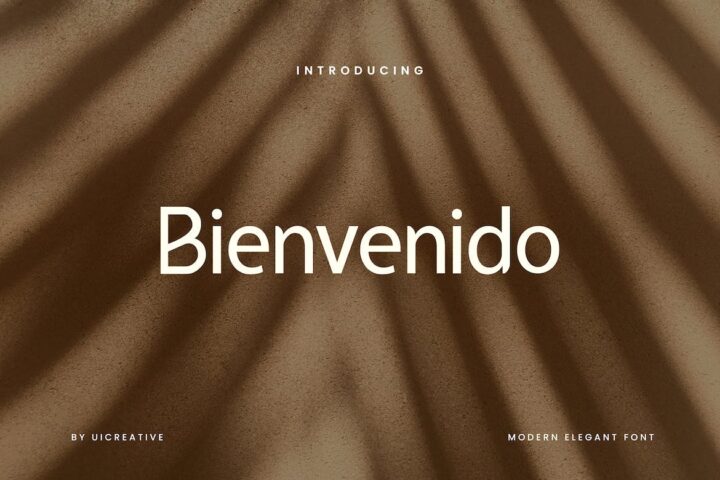
Bienvenido Sans Serif Font
Bienvenido Sans Serif Font is new sans serif. The typefaces designed based on traditional geometric construction that have been built with letter size wider, the x-heights taller and short descender that almost proportioned with the basic letter shape. With little details added like clean vertical cuts on the terminals and optimized sharp corners that makes this fonts smooth and refined looks. It was represents the flavor of the most common humanist typefaces style and grotesk feels.